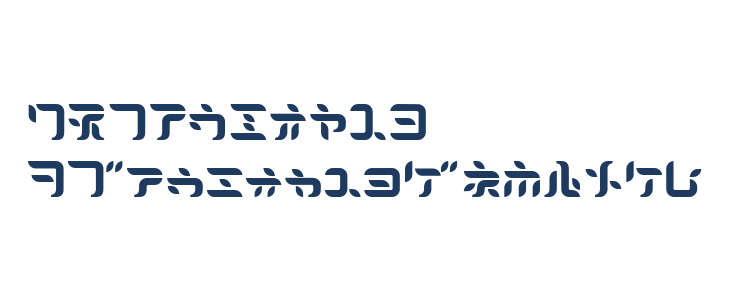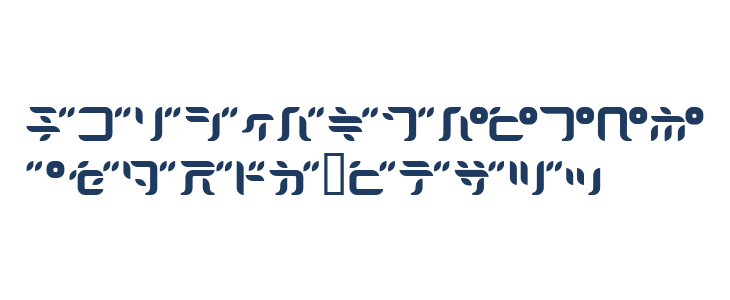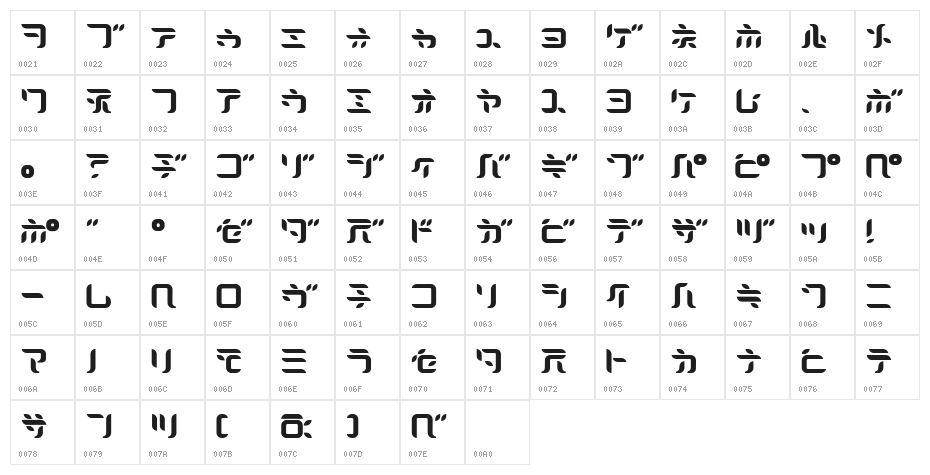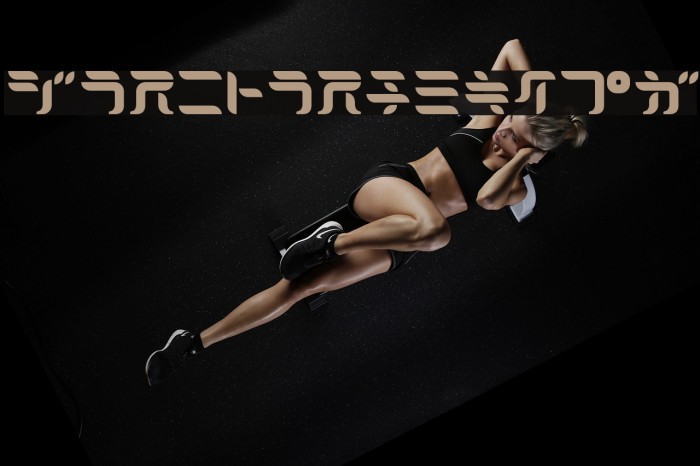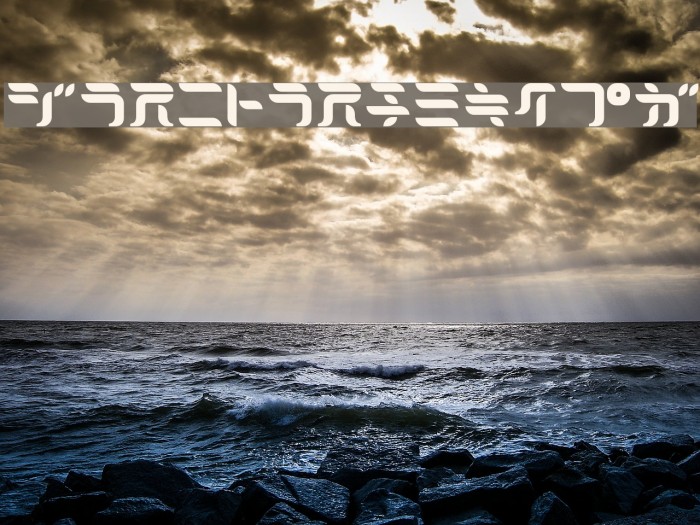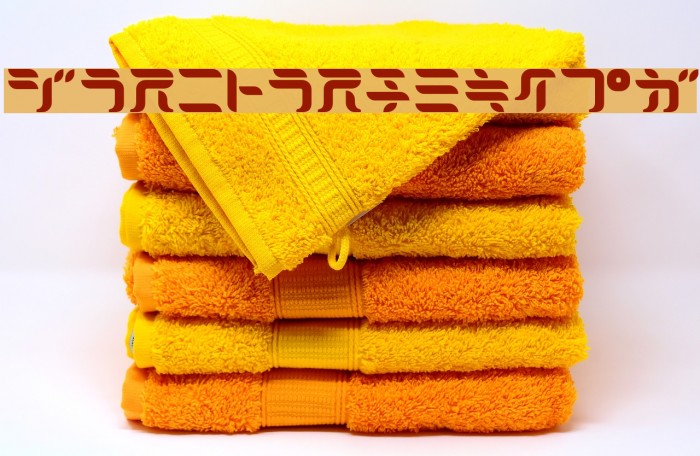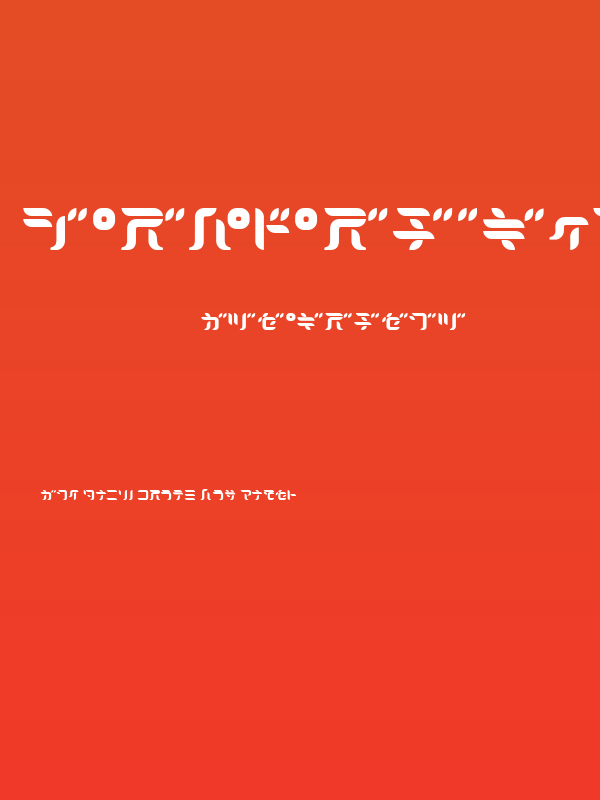
DorisorangeKT Font
DorisorangeKT Description
This design features a futuristic and abstract style, characterized by its unique and unconventional shapes. The characters are composed of bold, geometric forms with rounded edges and cut-out sections, giving it a distinct, modern appearance. The font's design is highly stylized, making it suitable for creative and artistic projects. Its visual impact is strong, with a focus on creating an otherworldly or sci-fi aesthetic. The spacing between characters is consistent, allowing for readability despite its intricate design.
| Use Case | Logos, Posters, Creative projects |
| Proposed Projects | Ideal for sci-fi themed designs, video game graphics, movie posters, and futuristic branding. |